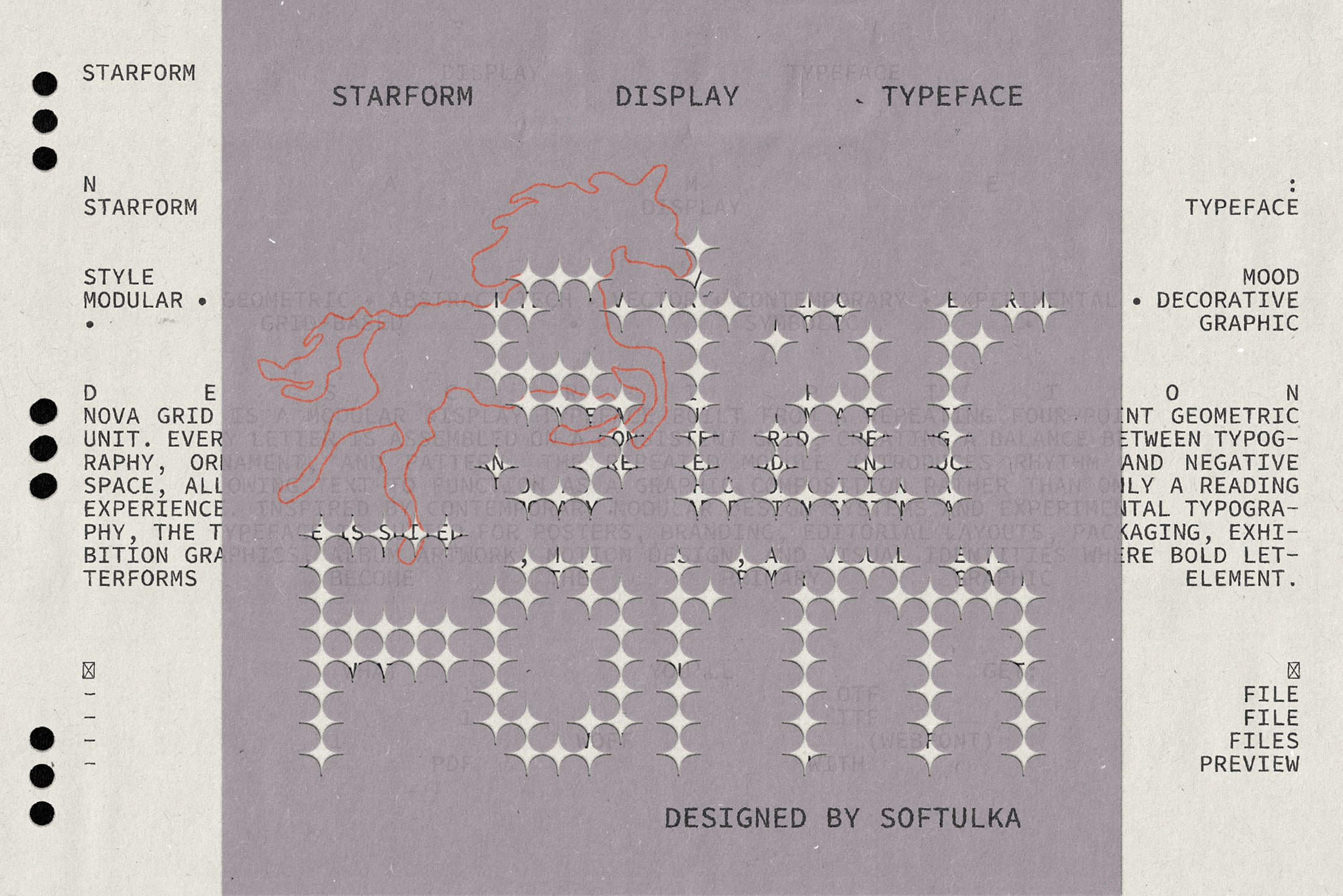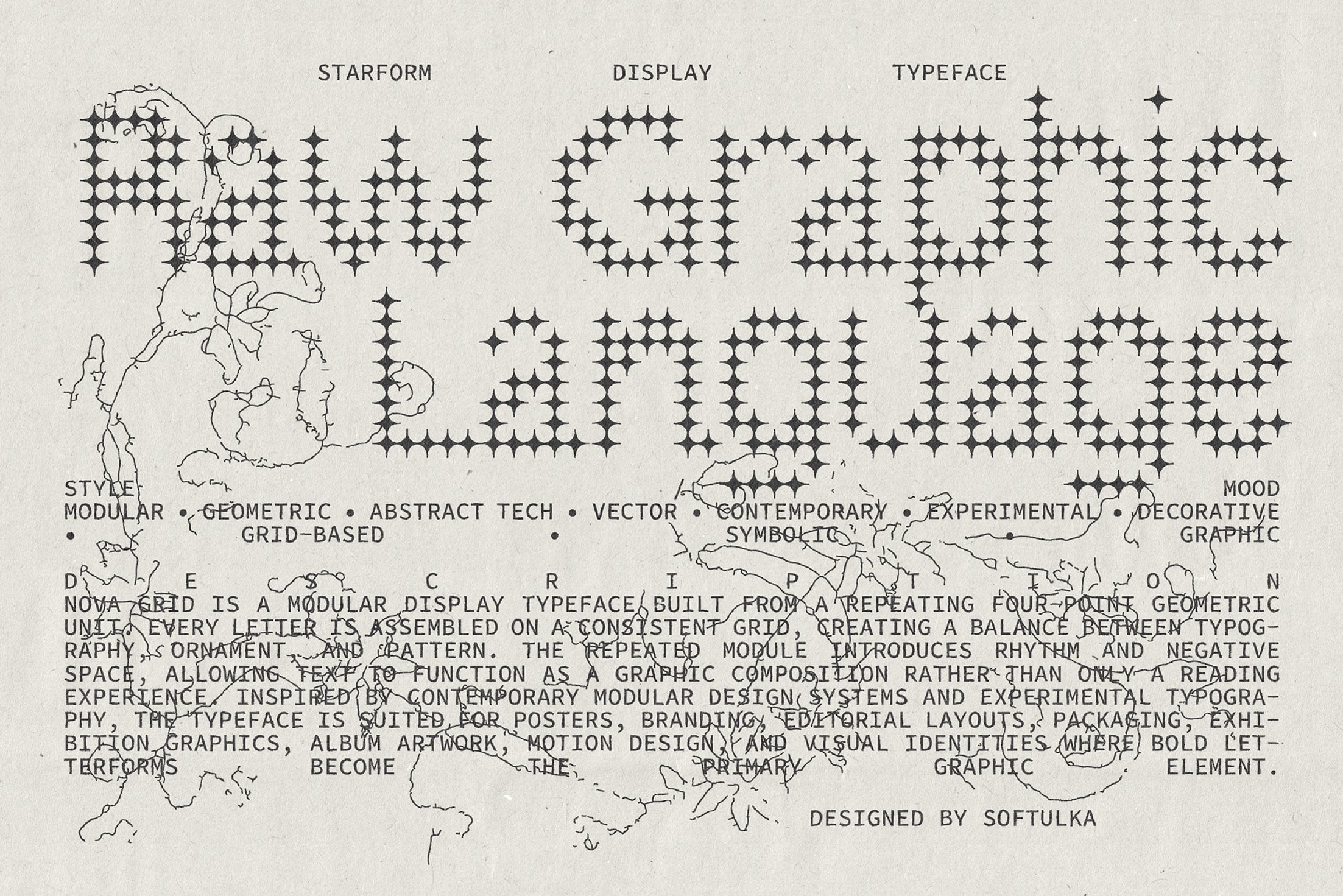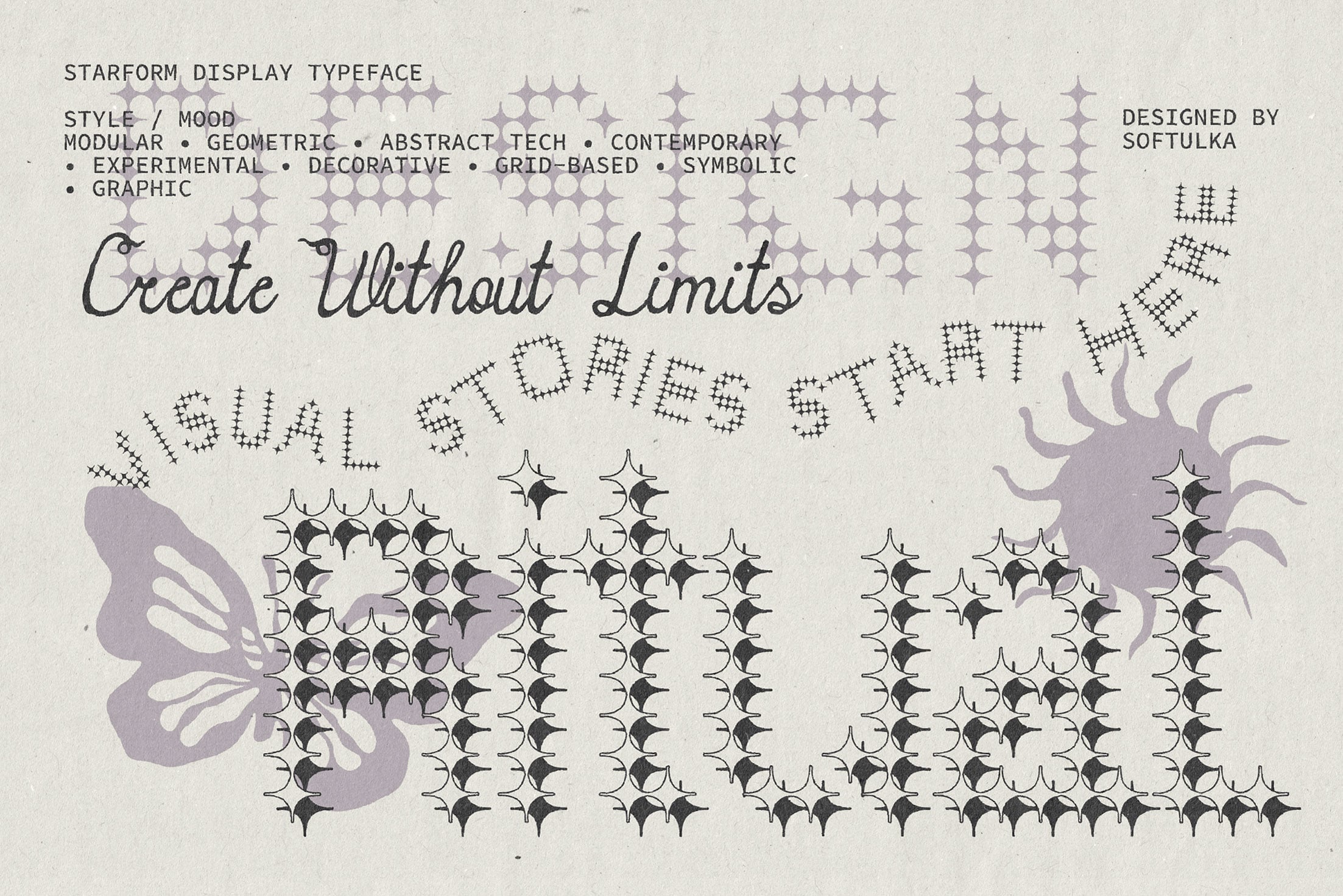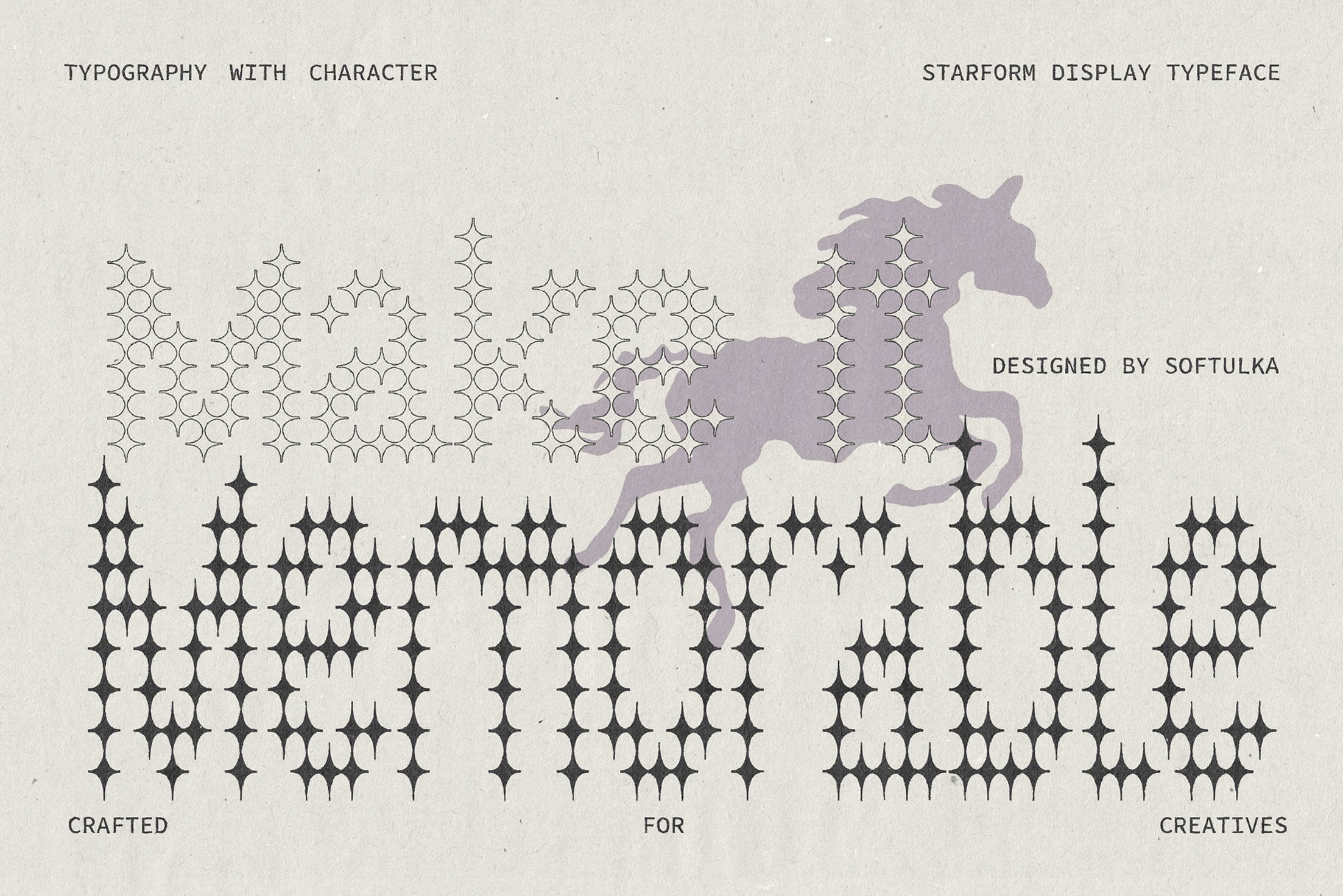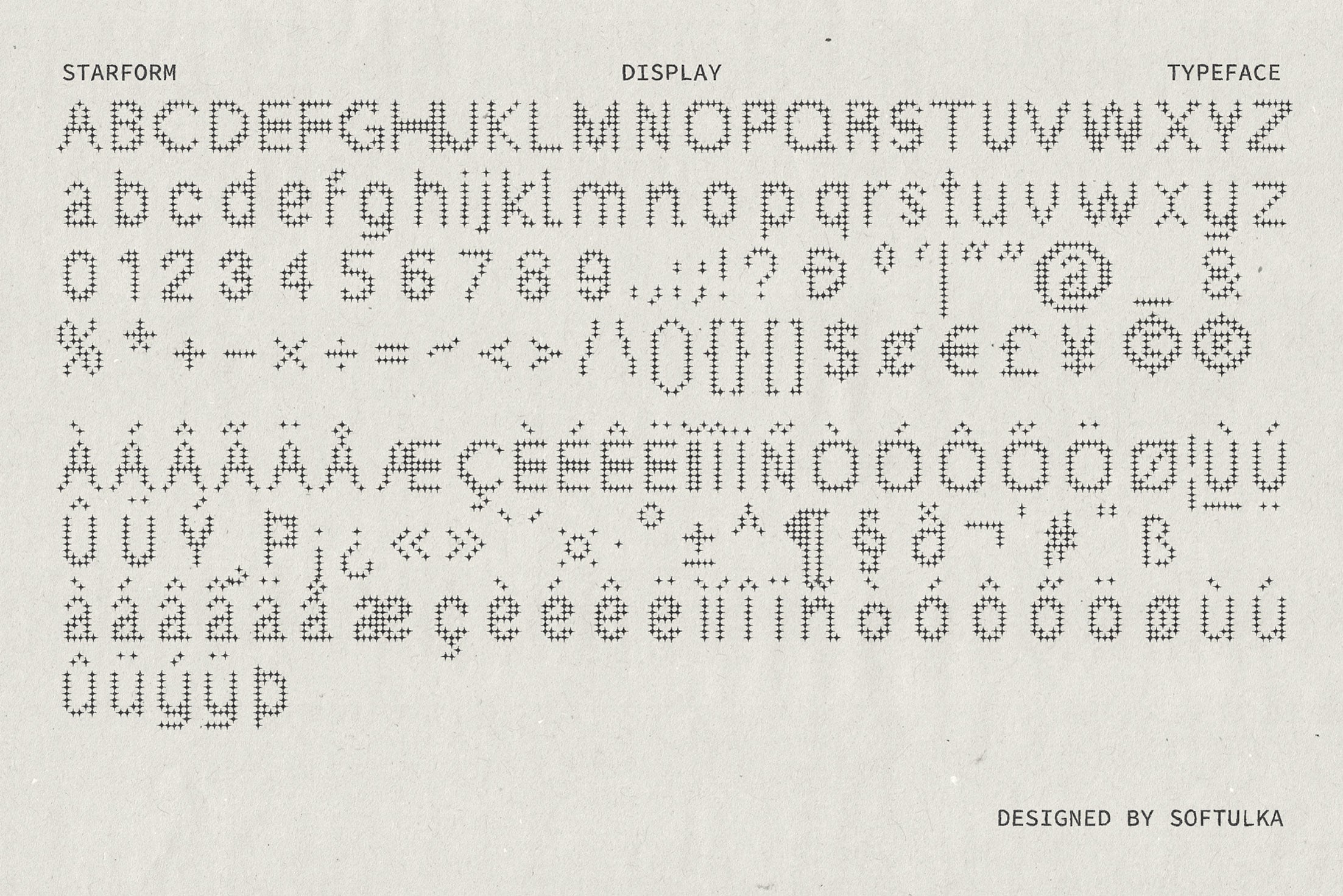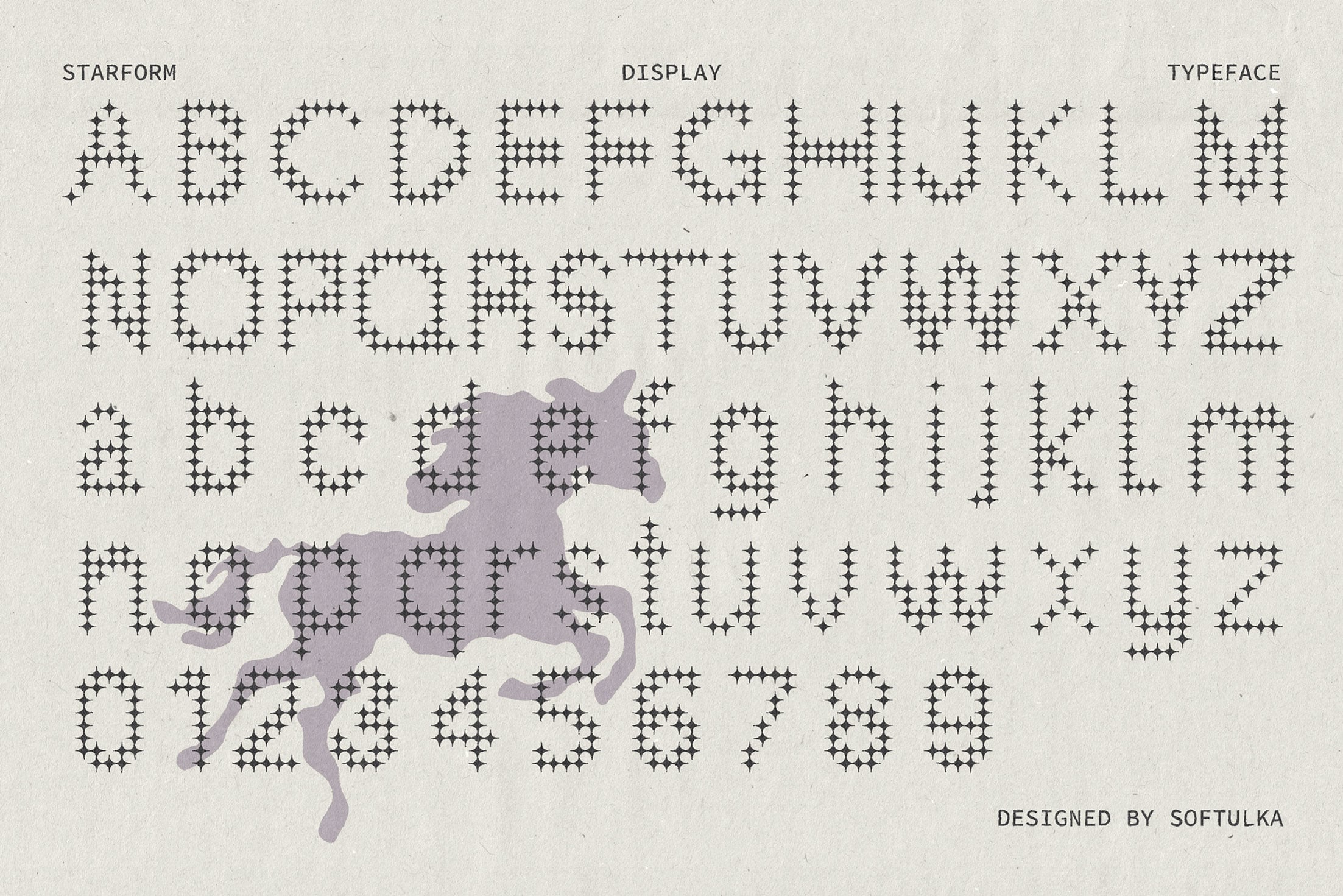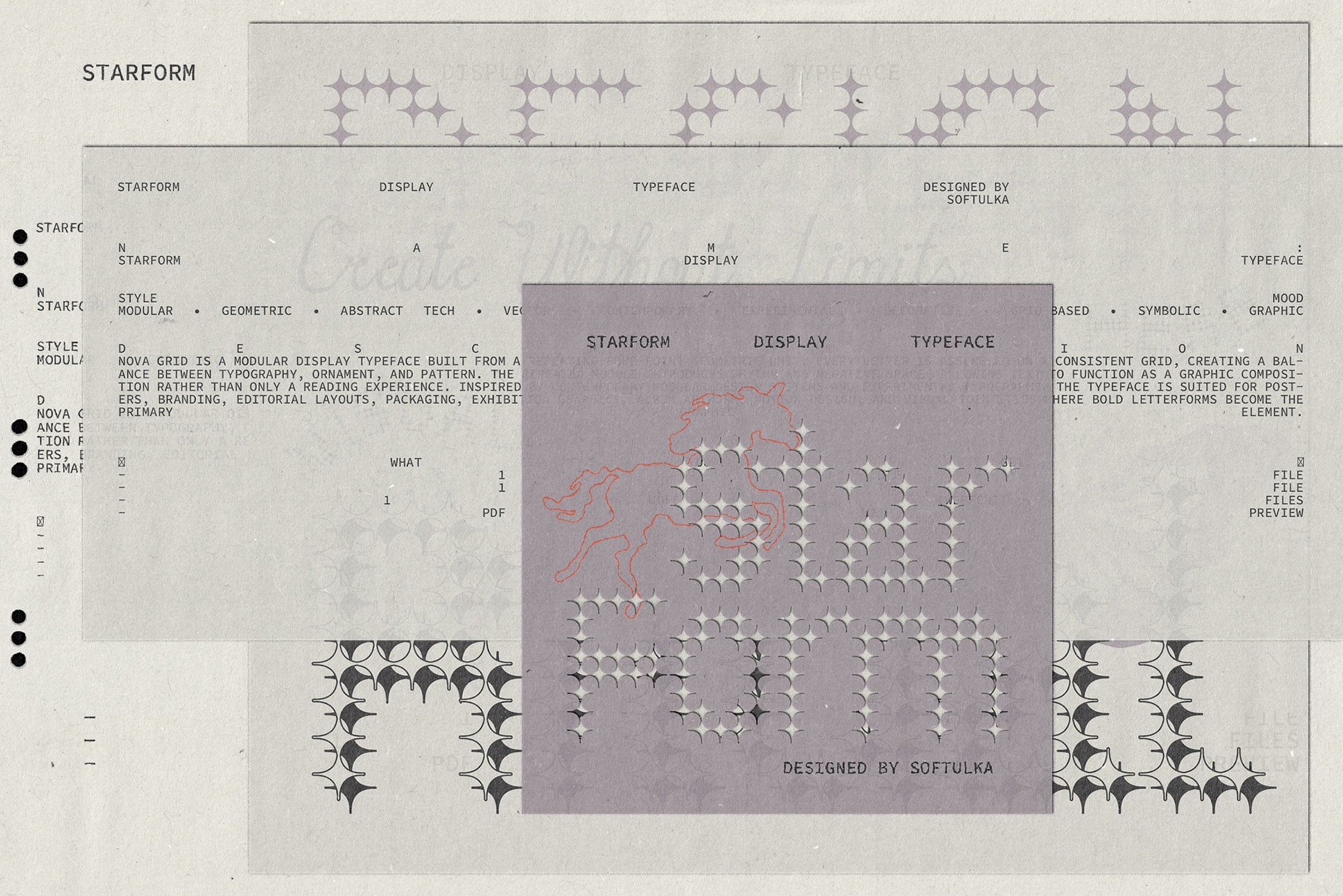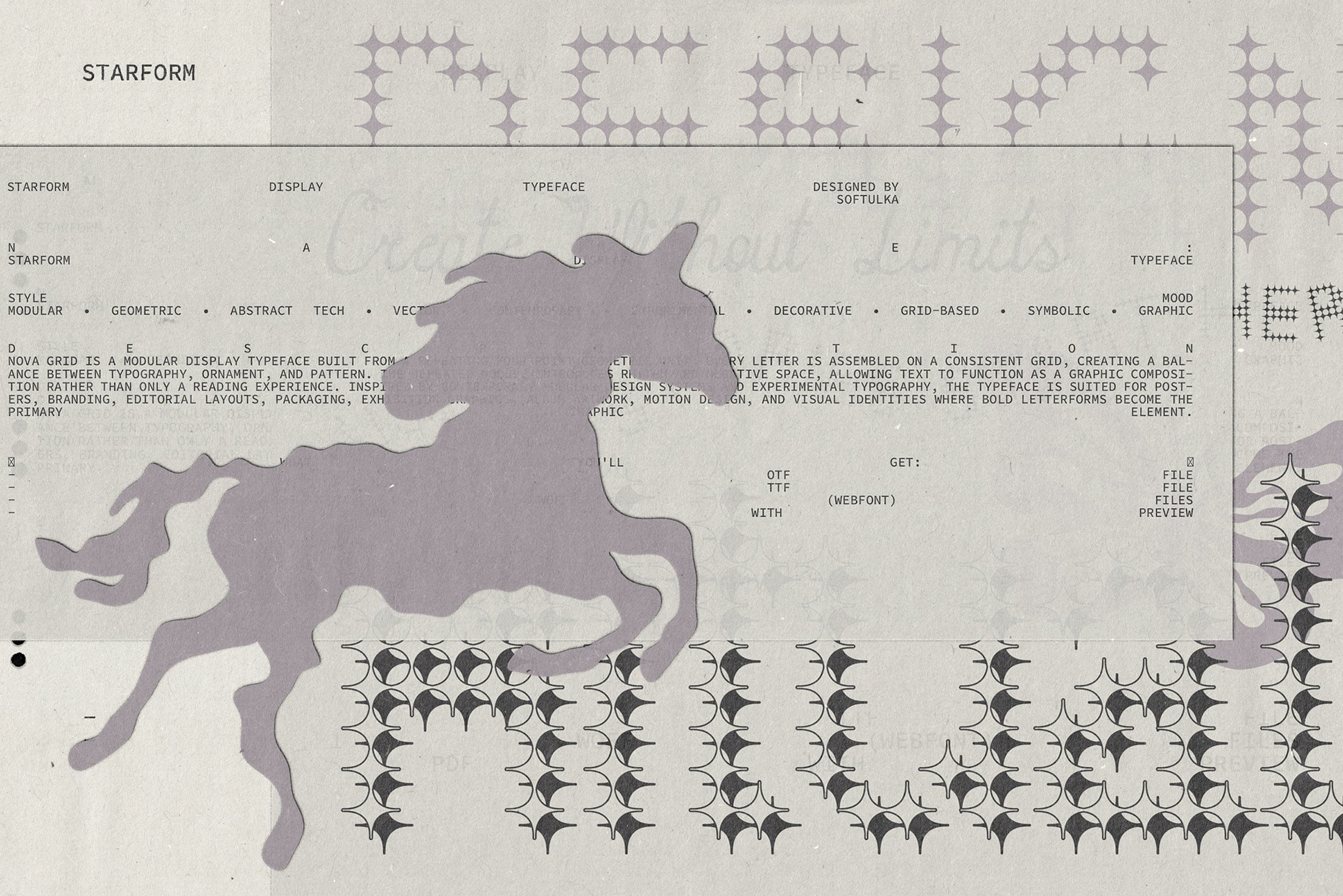
Style / Mood Modular • Geometric • Abstract Tech • Vector • Contemporary • Experimental • Decorative • Grid-Based • Symbolic • Graphic StarForm is a modular display typeface built from a repeating four-point geometric unit. Every letter is assembled on a consistent grid, creating a balance between typography, ornament, and pattern. The repeated module introduces rhythm and negative space, allowing text to function as a graphic composition rather than only a reading experience. Inspired by contemporary modular design systems and experimental typography, the typeface is suited for posters, branding, editorial layouts, packaging, exhibition graphics, album artwork, motion design, and visual identities where bold letterforms become the primary graphic element.